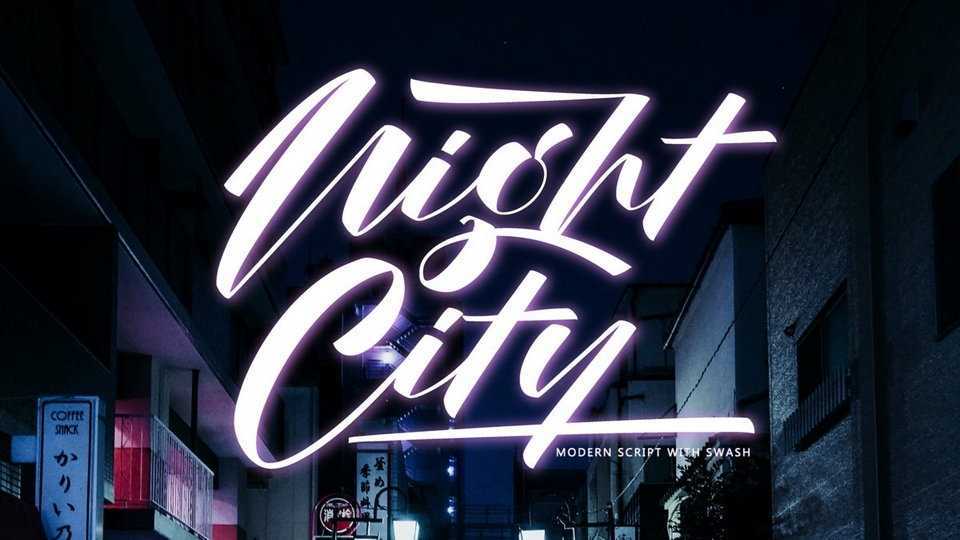
Download Night City font, a modern handwritten typeface with a dynamic vibe. Night City is great for delivering any message with confidence, authenticity and charm.
Designer: Gilar Studio